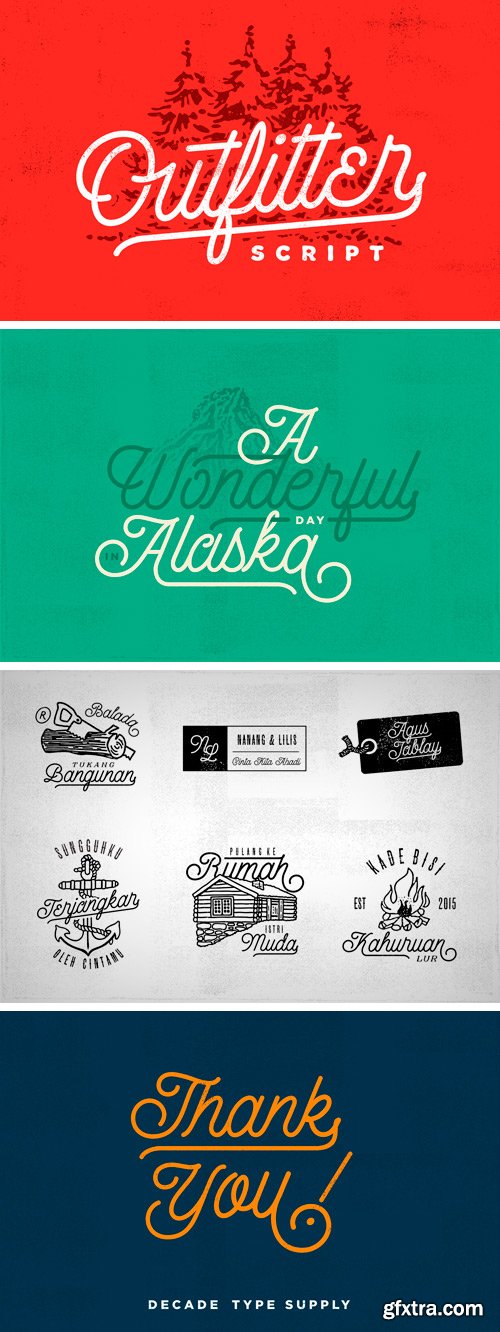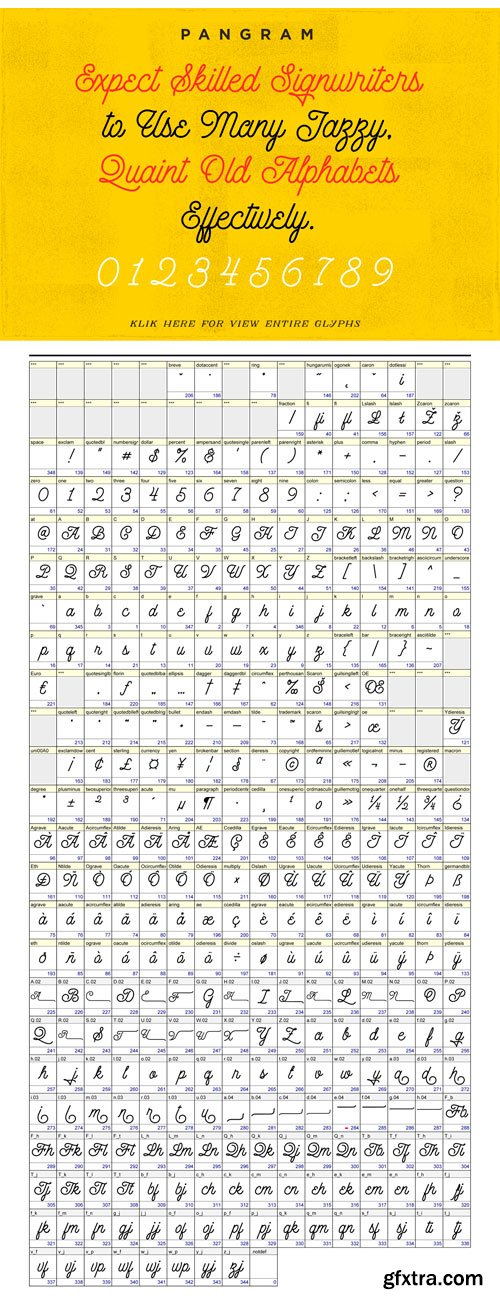
- Outfitter Script is a super sleek hand drawn mono line font with Elegant, dynamic and vintage look. There are also some interesting alternates glyphs, includes a full set of capital and lowercase letters, as well as multi-lingual support, currency figures, numerals, and punctuation. Bonus : Wayke & Grenson Font